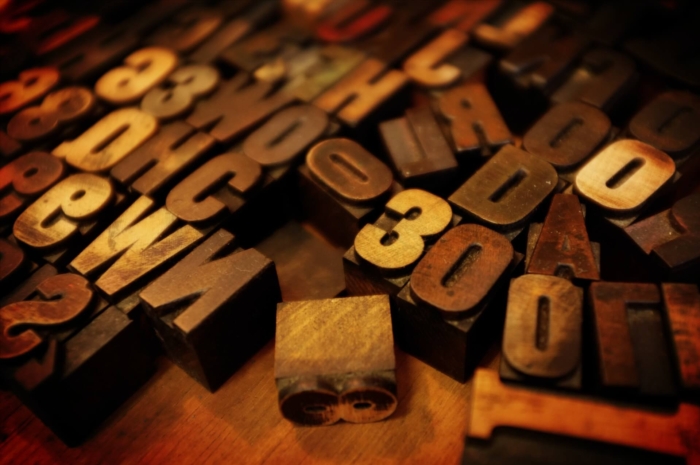
45 Outstanding Free Vintage Fonts
In his famous 1908 essay, ‘Ornament and Crime,’ modern architect Adolf Loos wrote: “The evolution of culture marches with the elimination of ornament from useful objects.” This pronouncement banished many of the frilly, decorative fonts of centuries past from the realm of High Design. Fast forward to the present day: Web 3.0 is awash in enough sleek sans serif and classic roman typefaces to make designers long for the typographic indulgences of yesteryear.
Harness the power of the antique and make your graphics pop with one of these vintage-inspired fonts, which have returned to the spotlight both in print and online. From the Wild West and Victoriana to the Avant Garde and Calligraphy, there are plenty of styles to choose from. Fonts have been grouped informally, with contemporary interpretations alongside (almost) original prototypes. All are available free for personal use, but please make sure to read the license agreements carefully.
Wood Type and Display Fonts
Carnivalee Freakshow
This distressed, wood-type-inspired font has the shabby charm of an old sideshow banner. Equal parts macabre and cheeky, it is appropriate for graphics ranging from the irreverent to the horrific.
Circus Ornate
Dieter Steffmann’s Circus Ornate captures the spirit of classic circus graphics, but still stands on its own as an ornamental, boisterous display font.
Coffee Tin (similar to the Rosewood font)
Inspired by fonts like Rosewood and Ponderosa, which are modeled after the display fonts of the late 18th century, Coffee Tin reinterprets old-fashioned advertising graphics with contemporary clarity.
Dirty Ames
This is another beautiful distressed font that draws inspiration from 19th century display types. The Typeology foundry based this font and its name on an 1884 typeface by D.T. Ames.
Ergono
JF  Ringmaster
A vintage beauty by Jester Font Studio.
Showboat
Shareware designer, David Rakowski, designed this font in 1991. 17 years later, its balance of monumentality and delicacy makes it a blast from the past that looks memorable in the present.
Tuscan
Rick Mueller’s Tuscan is one of his many vintage-inspired fonts, though its combination of sinuous contours and ample weight makes it memorable. This font has the flair of an antique display face without the fuss.
Fusty Saddle
Inspired by Sideshow, from Harold’s Fonts, Fusty Saddle is a hand-drawn, Wild West-inspired font made digital. Bittbox not only provides you with a font but a definition: “fusty,” according to their site, means “old-fashioned in attitude and style.”
Nashville
This digital adaptation of wood-type, with a Wild West twang, was designed by Matthew Austin Petty of Disturbed Type. Like a cowboy’s stubble, rough edges and scruffy surfaces make this font a more masculine antique.
Space and Astronomy font
From the independent digital type foundry, Fountain, Second and Astronomy font combines traces of the past with dreams from the future. Underneath this font’s embellishments are mechanical footprints, adding a hint of steampunk.
Font by J0hnnnie on fontspace
AngeGardien
The name of this font is derived from the French for “guardian angel,” and its capital letters are indeed guarded by winged figures. AngeGardien’s combination of daintiness and strength, shared with other great vintage typefaces, might be what makes it worthy of protection.
Font by Michel Bujardet on dafont
Antique and Renaissance Fonts
Caslon Antique
Caslon Antique is what an original, 18th century Caslon type might look like now: a little worn around the edges, but no less steadfast. This interpretation of the classic Caslon serif adds age and wisdom to a text without sacrificing legibility.
Agit Prop
A font in the spirit of Soviet Constructivism, Agit Prop is intended to convey the graphic essence of Bolshevist agitation and propaganda. Whether or not you agree with the politics behind the design, it’s difficult to deny this font’s stark and monumental beauty.